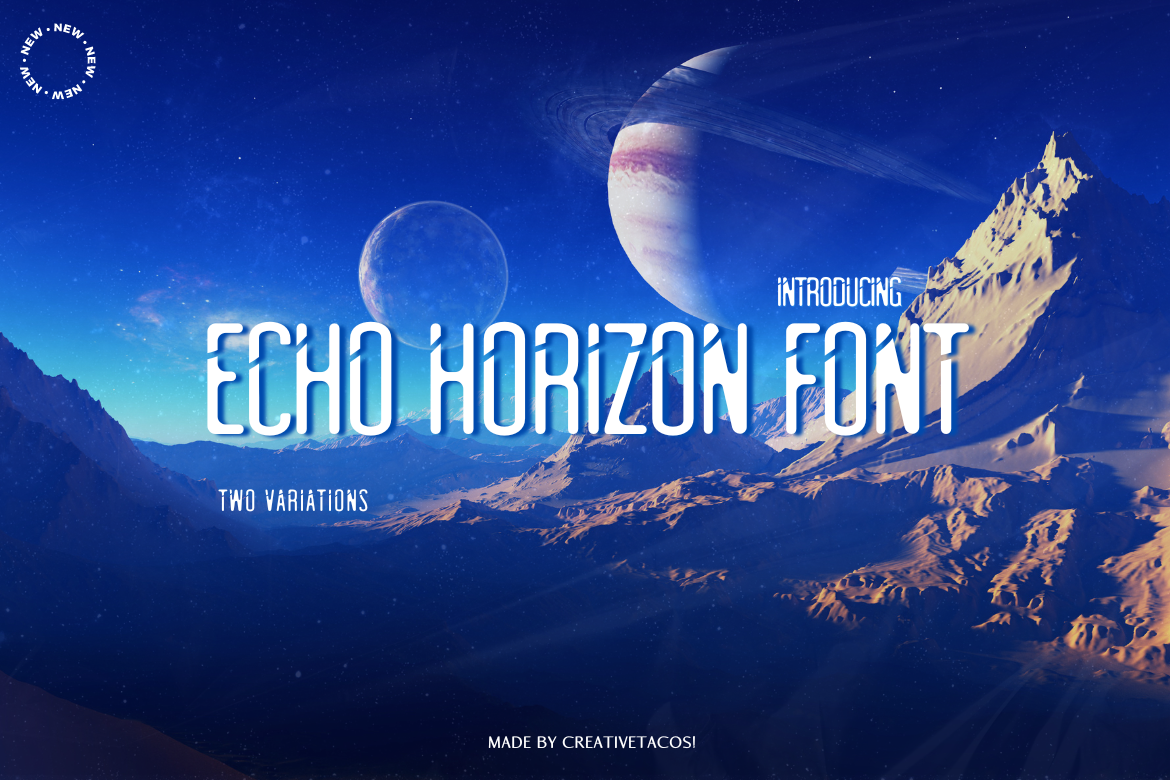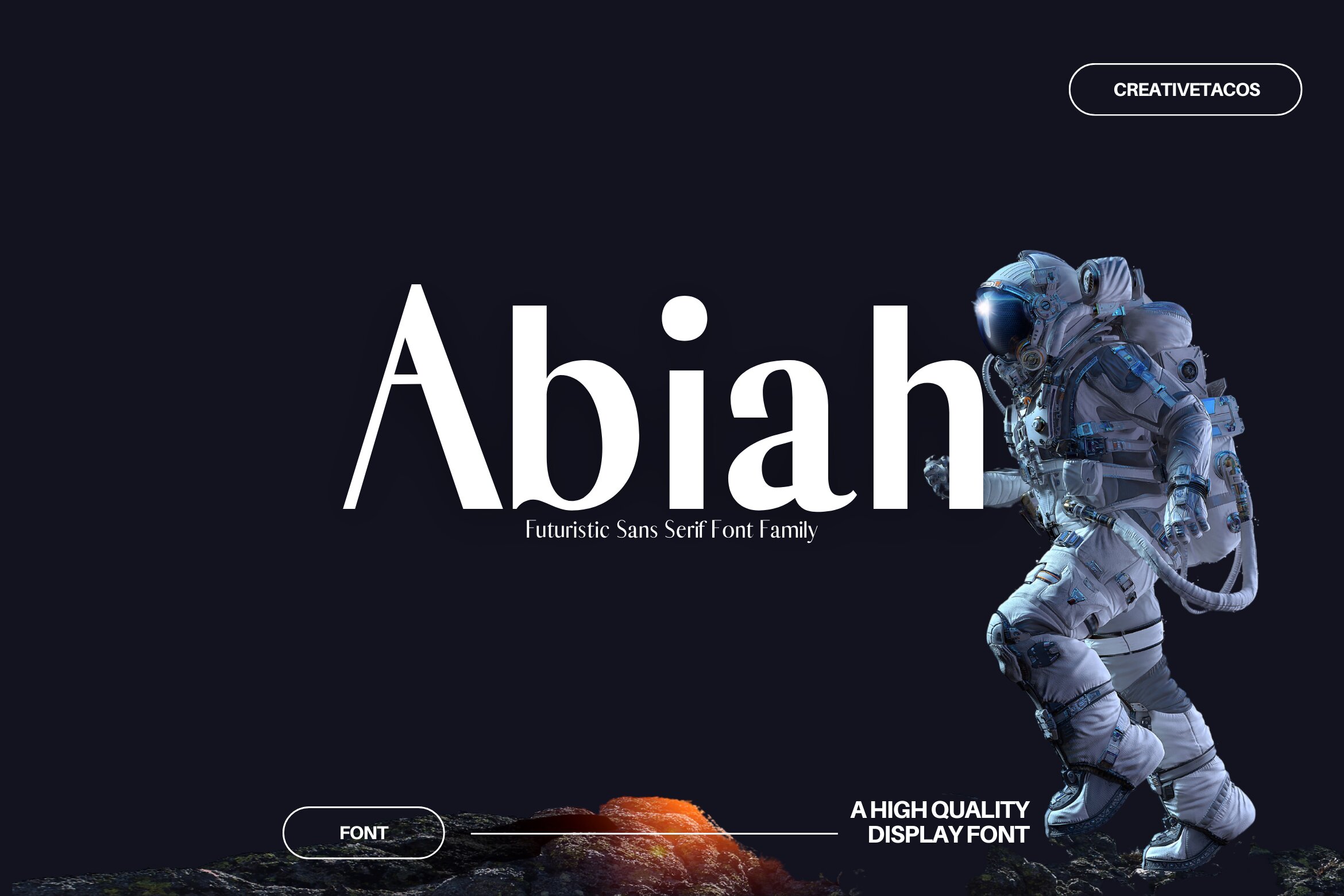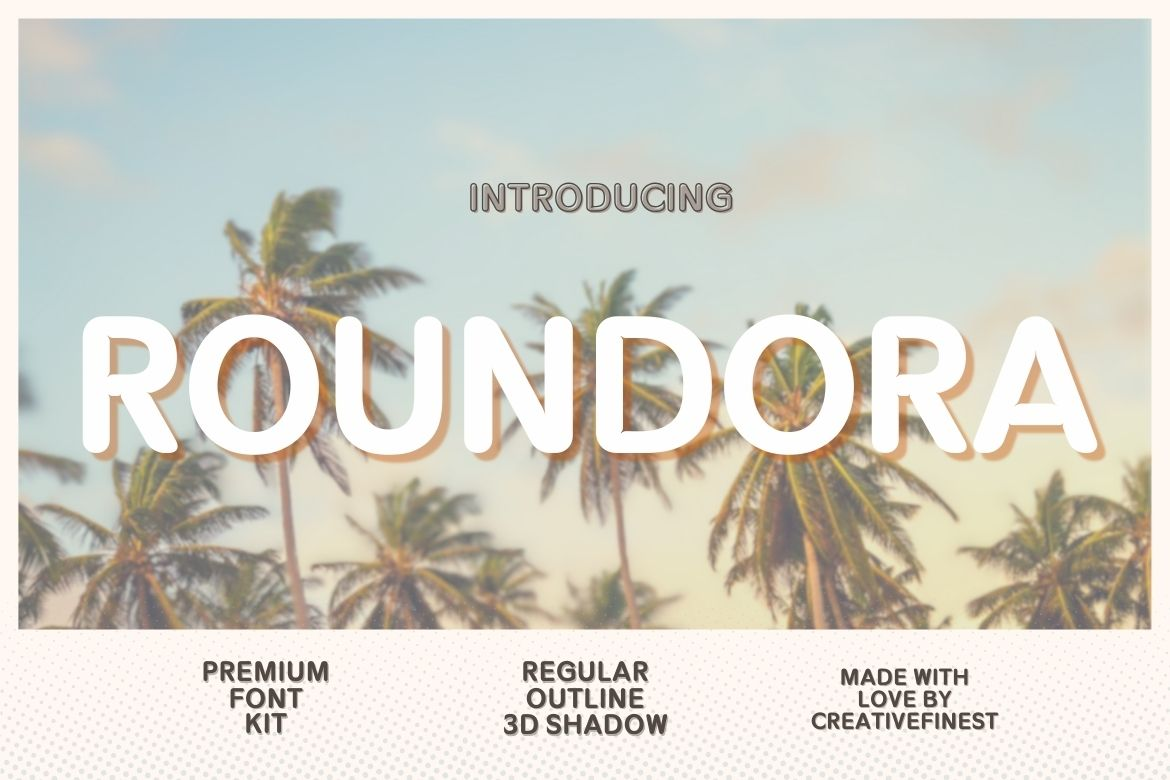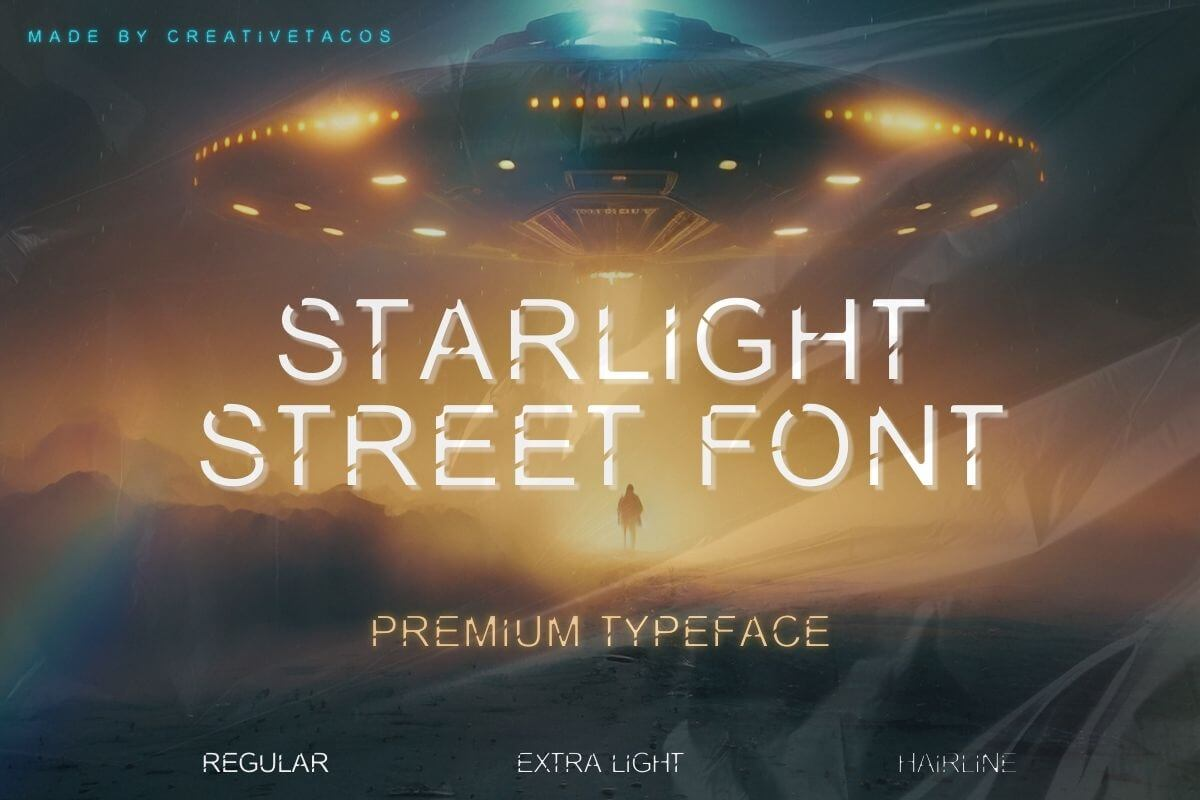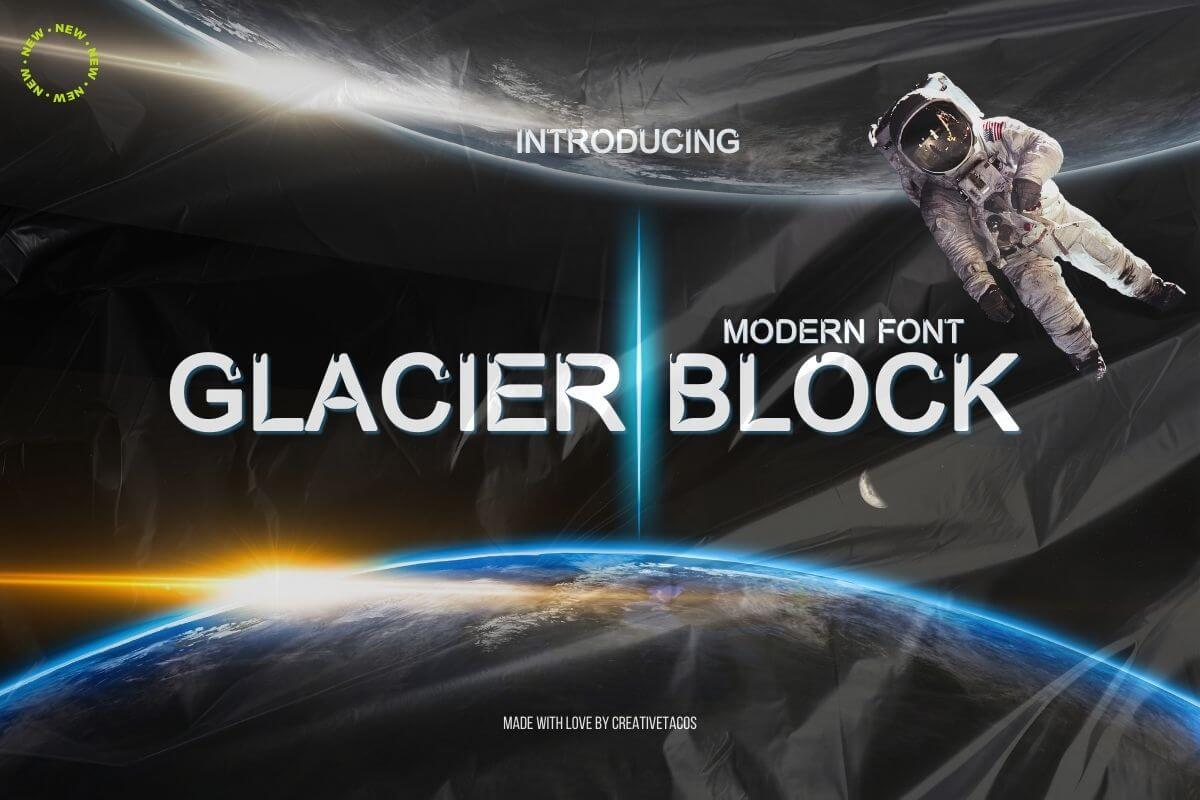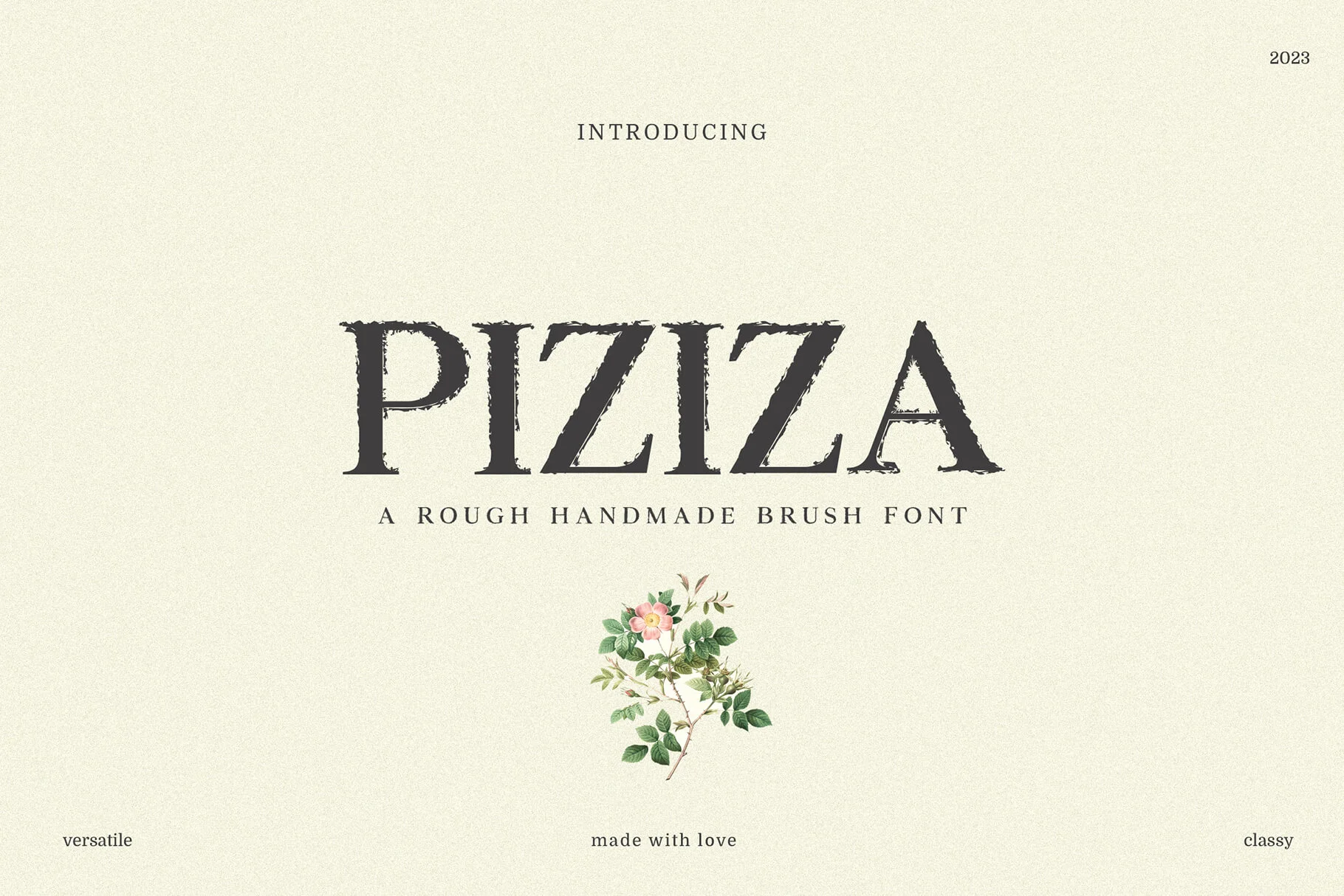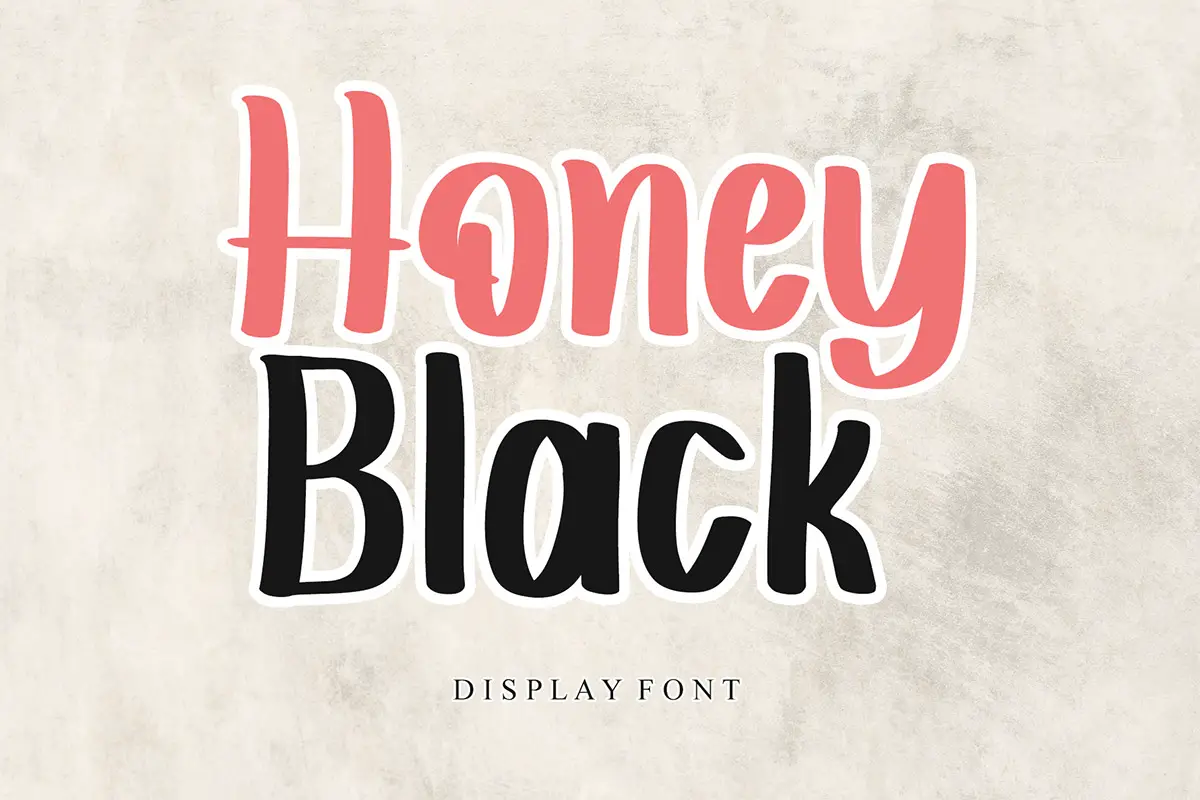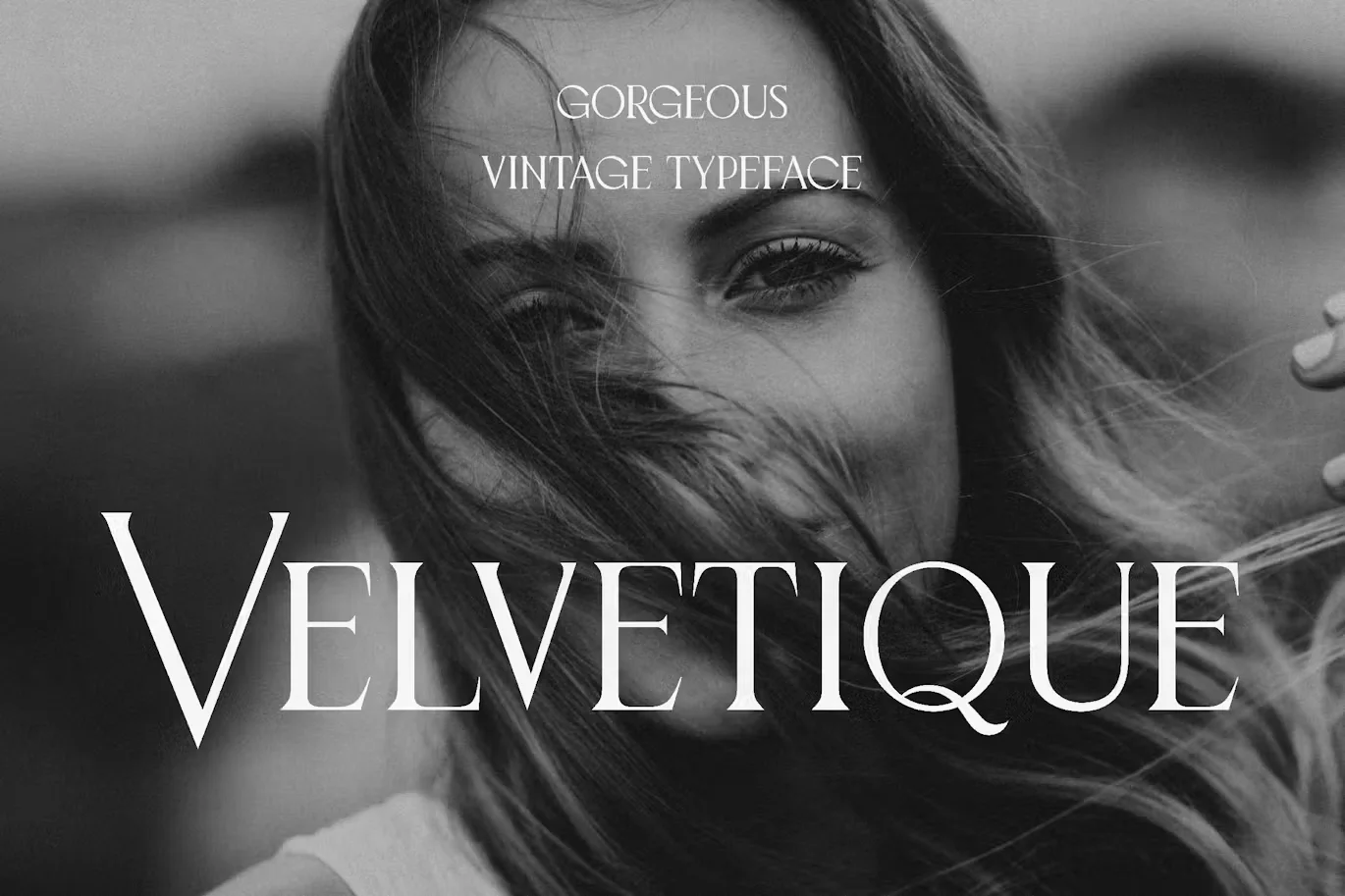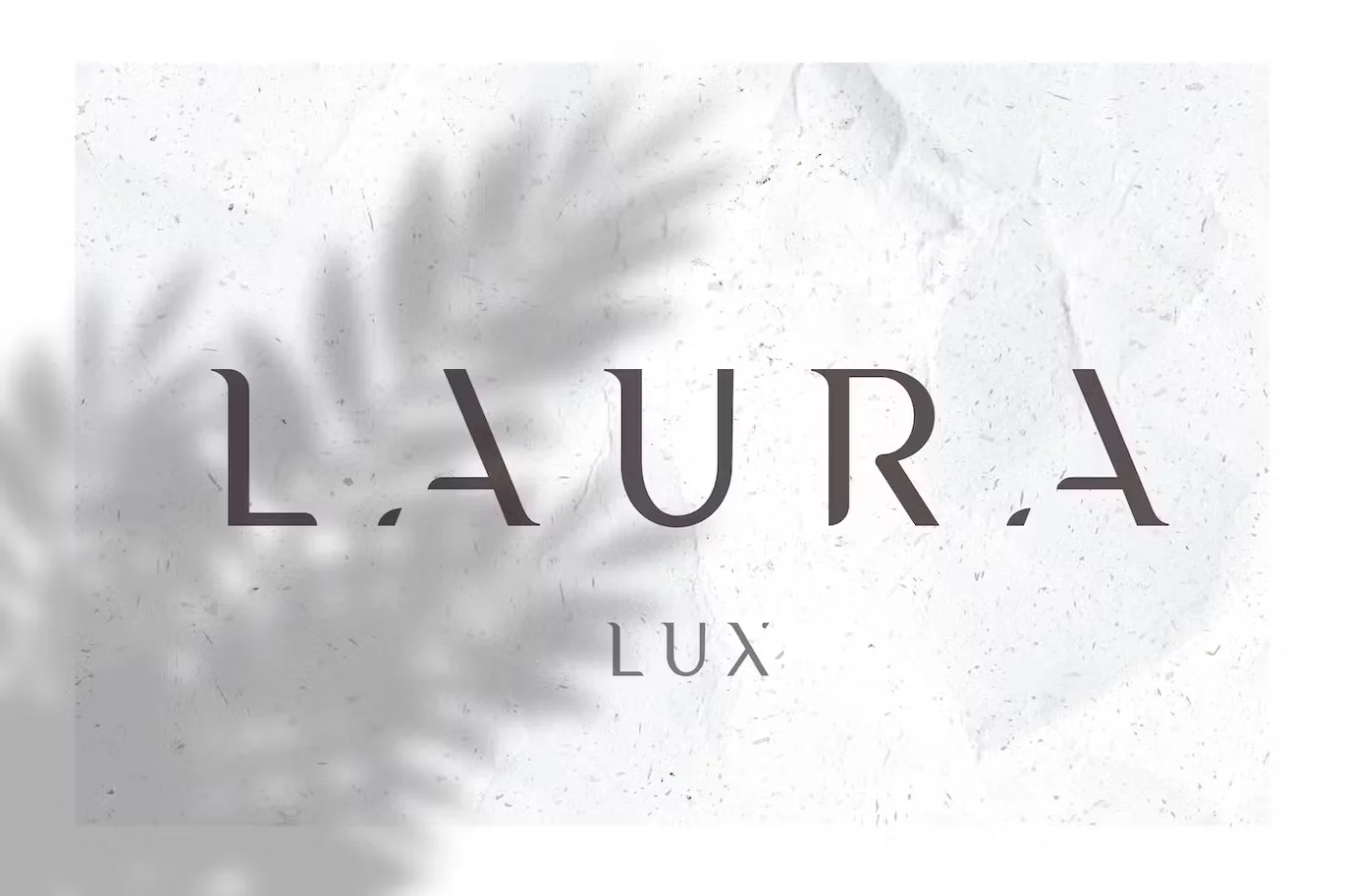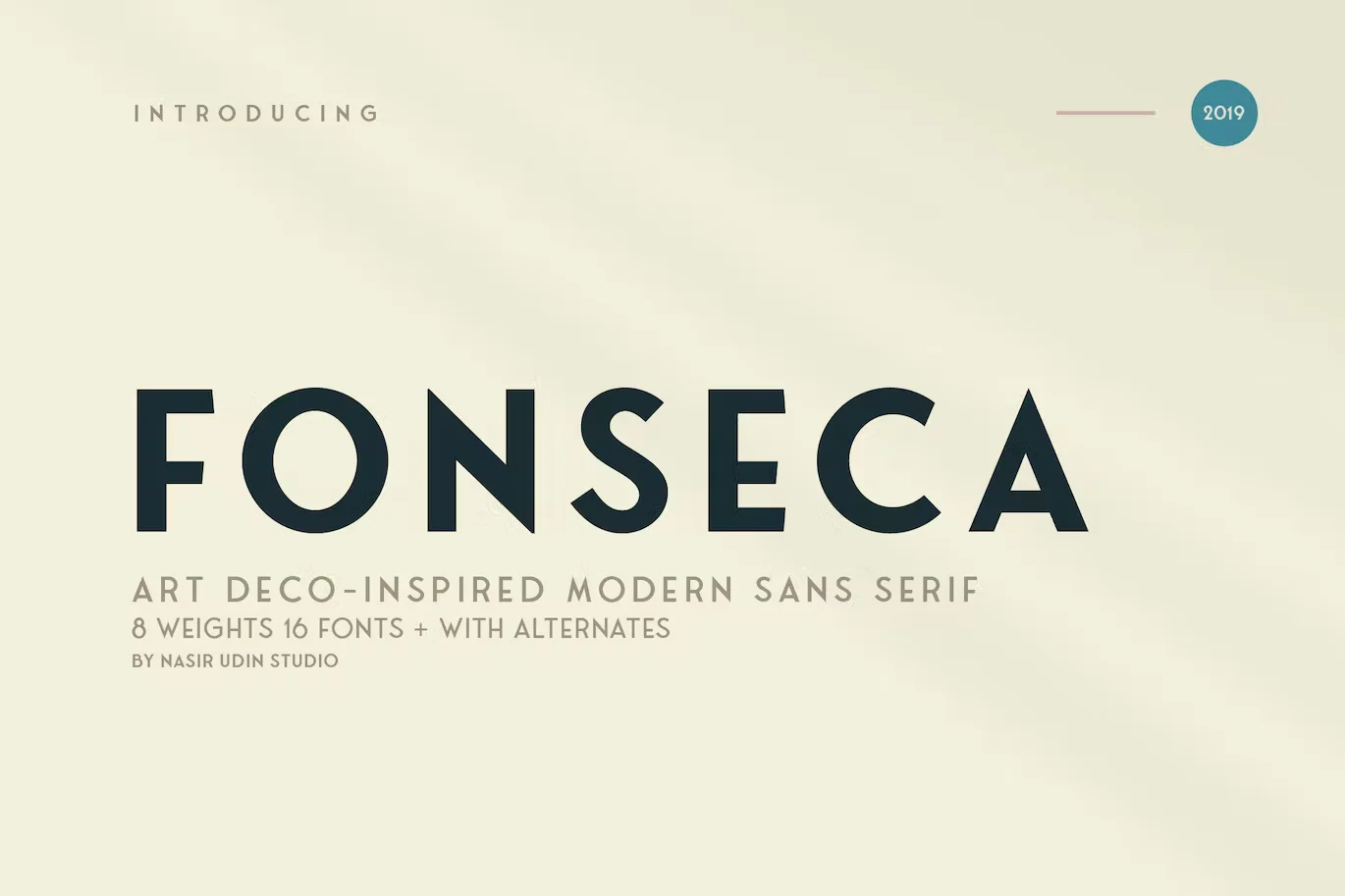
Looking for creative fonts? Look no more! In 2025, fonts have become even more fun and unique. Whether you’re designing a logo, a poster, or any project, these fonts will make your work stand out. From clean and simple fonts to playful and bold ones, you’ll find the perfect font for your ideas.
We’ve made a list of the 60 best creative fonts of 2025, so you don’t have to spend time searching. These fonts are great for adding personality to your designs. No matter what style you’re looking for, this collection has something special for everyone. Explore these fonts and find the perfect one for your next project!
Trending Creative Fonts for Corporate identity:
The new classic fonts are currently extremely popular. These creative fonts bring new energy and personality to your designs. These fonts are more than just letters; they convey your brand’s personality. They are unique, simple to read on any screen, and ideal for making a strong statement.
Yetro Futuristic Sans Serif Procreate Font
The Yetro Futuristic Sans Serif Font is a sleek, neat, and minimalist font that is perfect for creating a futuristic or sci-fi look with a feel of modernity.
Quirlox Handmade Font Duo
Quirlox, a handmade font duo that brings a fresh and relaxed feel to your designs. With both regular and outline versions, this font is perfect for a wide range of uses, from fun invitations to creative branding.
Echo Horizon Font Family
The Echo Horizon Font Family is a sleek and modern set of 2 styles. Its clean lines and minimalist design make it suitable for various applications such as logos, titles, web design, and branding.
Abiah Sans Serif Creative Fonts Family
Creating an atmosphere of elegance and sophistication, the Abia Sans Serif font family breathes a sophisticated modernity suitable for high-end branding and editorial design. Its minimalist character strokes maintain a clean and uncluttered feel while evoking a contemporary aesthetic.
Roundora Modern Font
Meet Roundora, a stylish and easy-to-use font that makes your brand look modern and professional. With its smooth curves and clean lines, Roundora modern font is perfect for making your designs stand out.
Established Typewriter Font
The Established Typewriter font brings the classic charm of typewriters to your designs. This font has a vintage look that makes it ideal for giving your projects a nostalgic and old-fashioned feeling. Whether you’re working on invitations, branding, or simply want to add a feel of history to your work, this font is a great choice.
Starlight Street Font – Modern Movie Font
Starlight Street font is a futuristic and cinematic font that provides a modern look to many projects like TV Shows, OTT, Music Albums.
Glacier Block Modern Font
Glacier Block is a bold, sans-serif font with a crisp and modern style. It features sharp, blocky letters that look like they’ve been carved from ice. This font is great for headlines, posters, and branding, especially when you want to give your design a cool, strong feel.
Piziza Brush Font
Embrace the free-spirited essence of creativity with the Pizzazz Brush font. This artistic gemstone is perfect for those who want to express emotion and uniqueness through their designs. Its raw strokes and playful textures are the ticket to a whimsical visual journey.
Enter a world of sleek aesthetics with the Honey Black display font. The bold and geometric letters of this font make a statement, making it an ideal choice for modern branding and headline projects.
Velvetique – Luxury Typeface
Velvetique emerges as the epitome of luxury in the world of typography, a typeface that speaks volumes of elegance and sophistication. With its exquisite design, Velvetique is tailored specifically for those who seek to infuse a touch of opulence into their creative projects. Perfect for the high-fashion realm, glossy magazine spreads, and the enchanting ambiance of weddings, this font not only complements but elevates the aesthetic of any design it graces.
Laura – A Minimal Luxury Font
Introducing Laura – a luxury serif font for branding and display purposes. Laura is perfect for all kinds of elegant branding projects, modern logos, invitations and titles. It works best as a title or decorative font as it conveys modern minimalism.
Fonseca Art Deco Font Family Pack
The Fonseca Art Deco Font Family Pack takes you back to the era of geometric elegance. Its perfectly balanced letterforms and classic arrangement make it a favorite choice for those who want to inject a vintage charm into their designs.
Mutiara Vintage Slab Serif Font
Dive into the realm of classic typography with the Mutiara Vintage Slab Serif font. Its strong character and sophisticated textures make it a reliable choice for branding projects and editorial content.